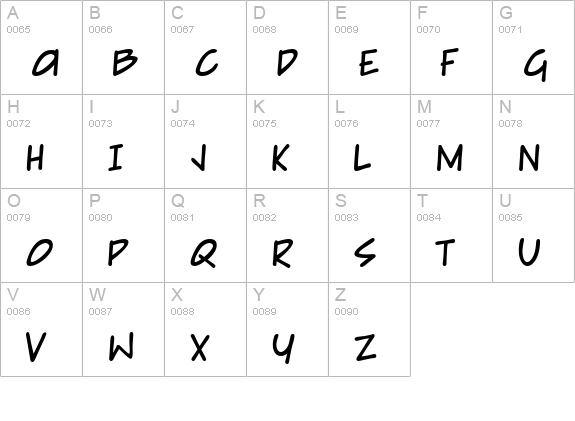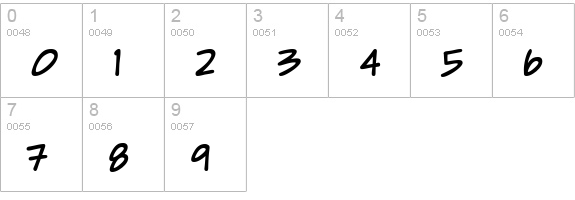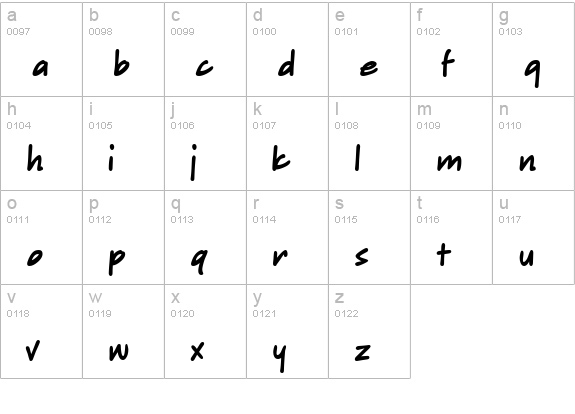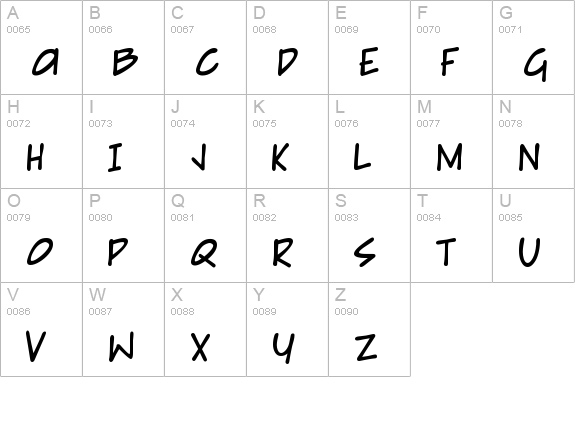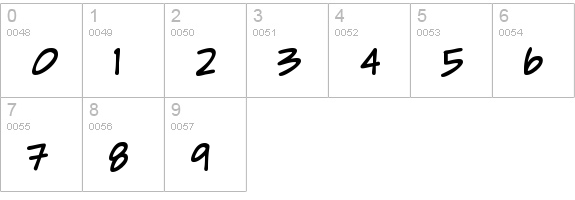
Sketchpad Note Bold Font Details
Sketchpad Note Bold is a strong, high-contrast variant in the Sketchpad typeface family \xE2\x80\x94 well suited to headlines, attention-grabbing titles, and strong calls-to-action.
Introducing Sketchpad Note Bold, a captivating and expressive font that effortlessly adds a touch of creativity to your projects. With its bold and dynamic strokes, this font exudes a sense of confidence and uniqueness. From typography enthusiasts to graphic designers, Sketchpad Note Bold offers a versatile and modern solution for any design need. What sets Sketchpad Note Bold apart is not only its striking aesthetics but also its accessibility. Designed with the user in mind, this font is freely available to download at FontsMarket.com. Whether you're working on a personal project or a professional assignment, Sketchpad Note Bold offers the flexibility and convenience of being easily accessible at no cost. The bold and commanding presence of Sketchpad Note Bold makes it an ideal choice for various design applications. From eye-catching headlines to attention-grabbing logos, this font effortlessly captures attention and leaves a lasting impression. Its unique charm lies in the seamless combination of hand-drawn elements and modern typography, creating a perfect balance between playfulness and professionalism. With Sketchpad Note Bold, your designs will come to life with a sense of energy and character. The carefully crafted curves and confident strokes of each letter add depth and personality, making your text truly stand out. Whether you're designing a poster, creating a website, or crafting a social media post, this font will elevate your work and captivate your audience. So why wait? Unleash your creativity and download Sketchpad Note Bold today, free of charge, at FontsMarket.com. With its striking visuals and freely accessible nature, this font is a must-have for any designer looking to make a bold statement. Let your imagination run wild and explore the endless possibilities that Sketchpad Note Bold brings to your design projects.